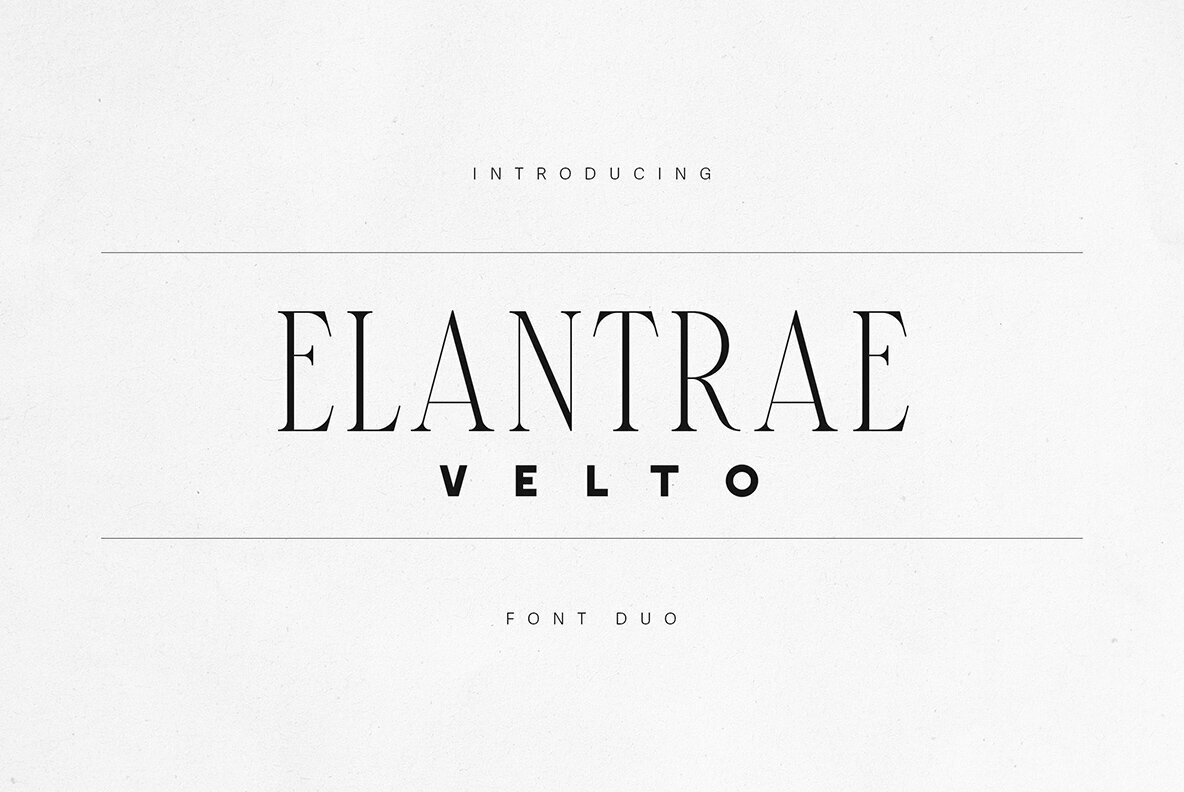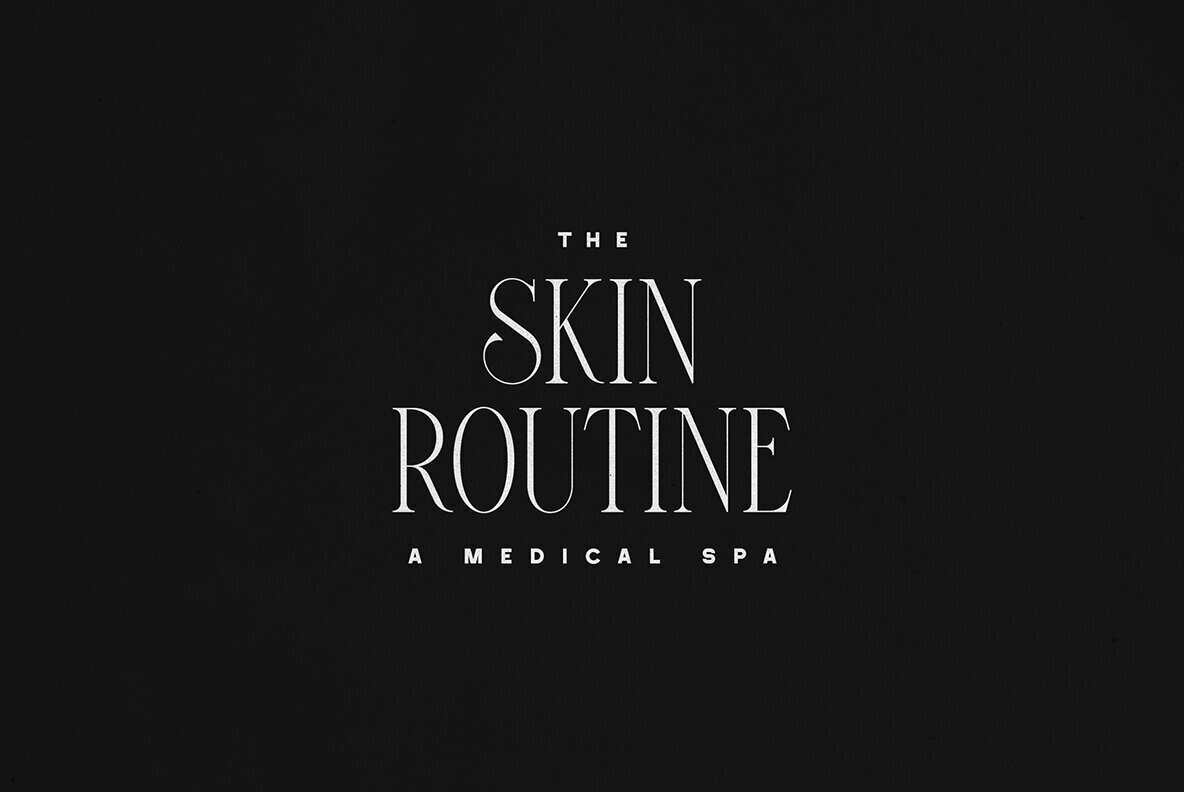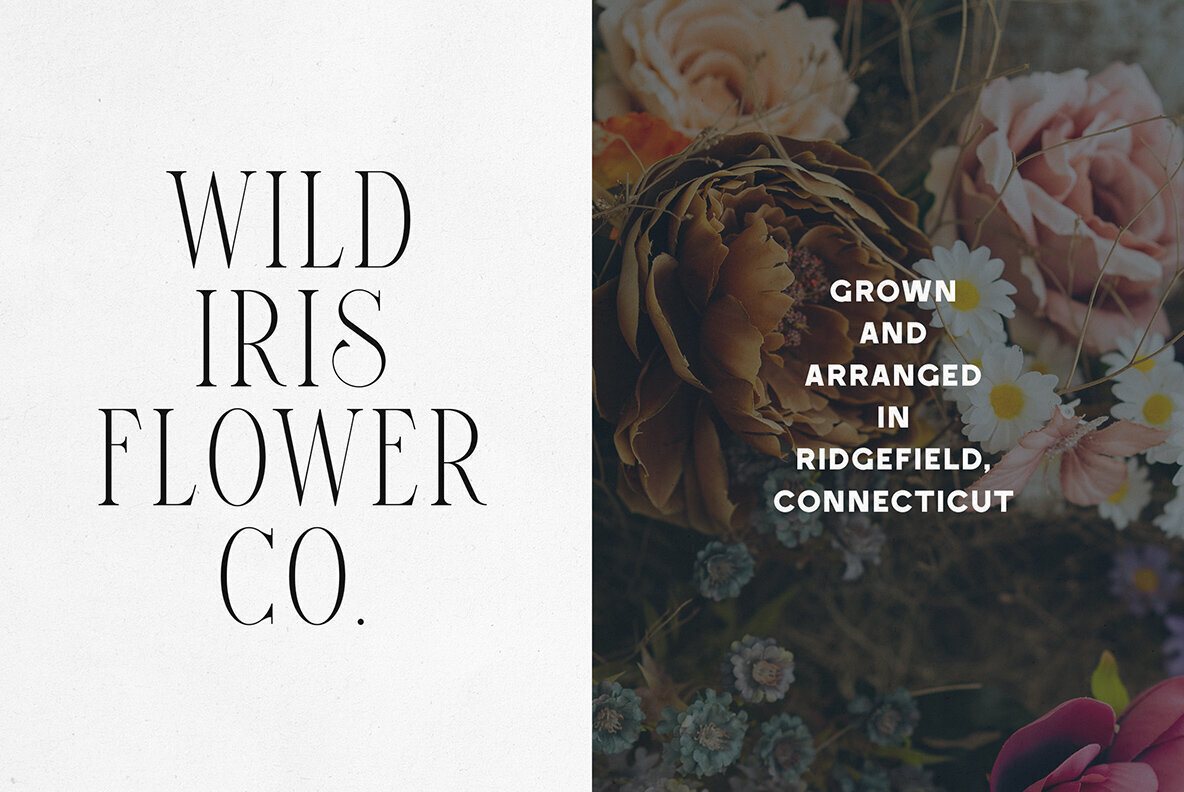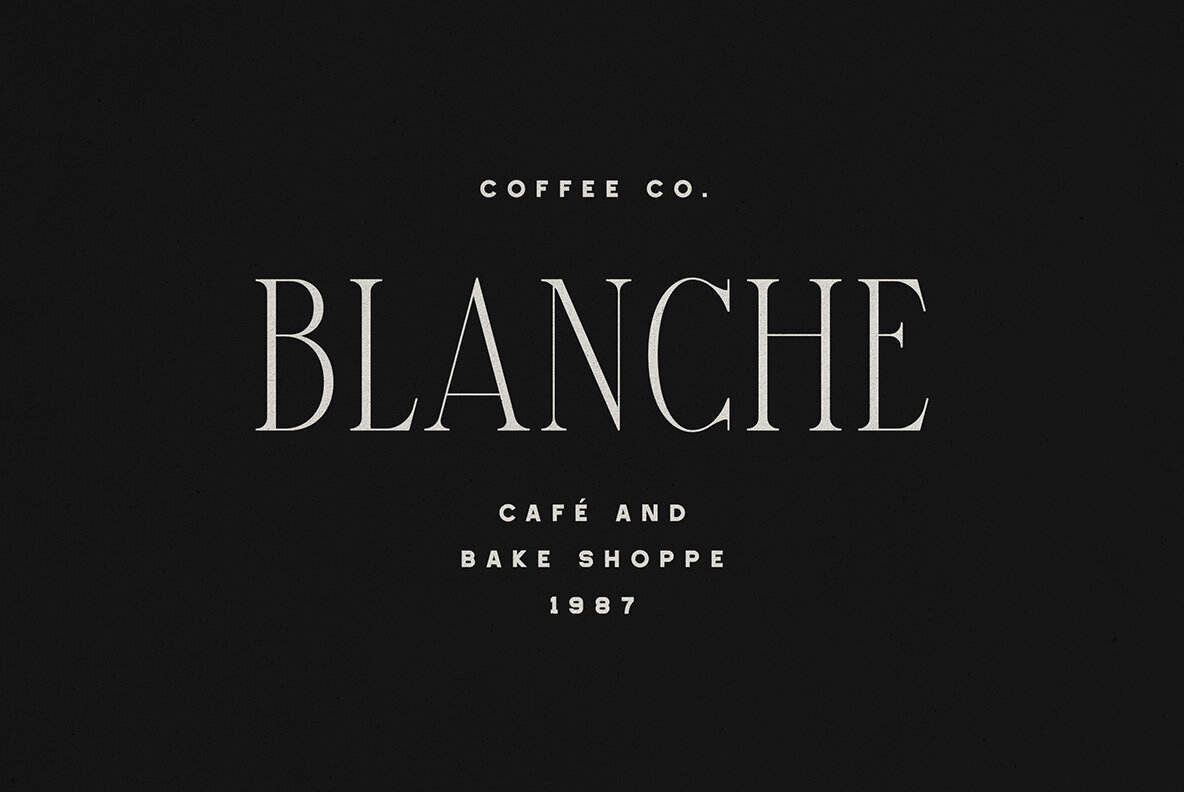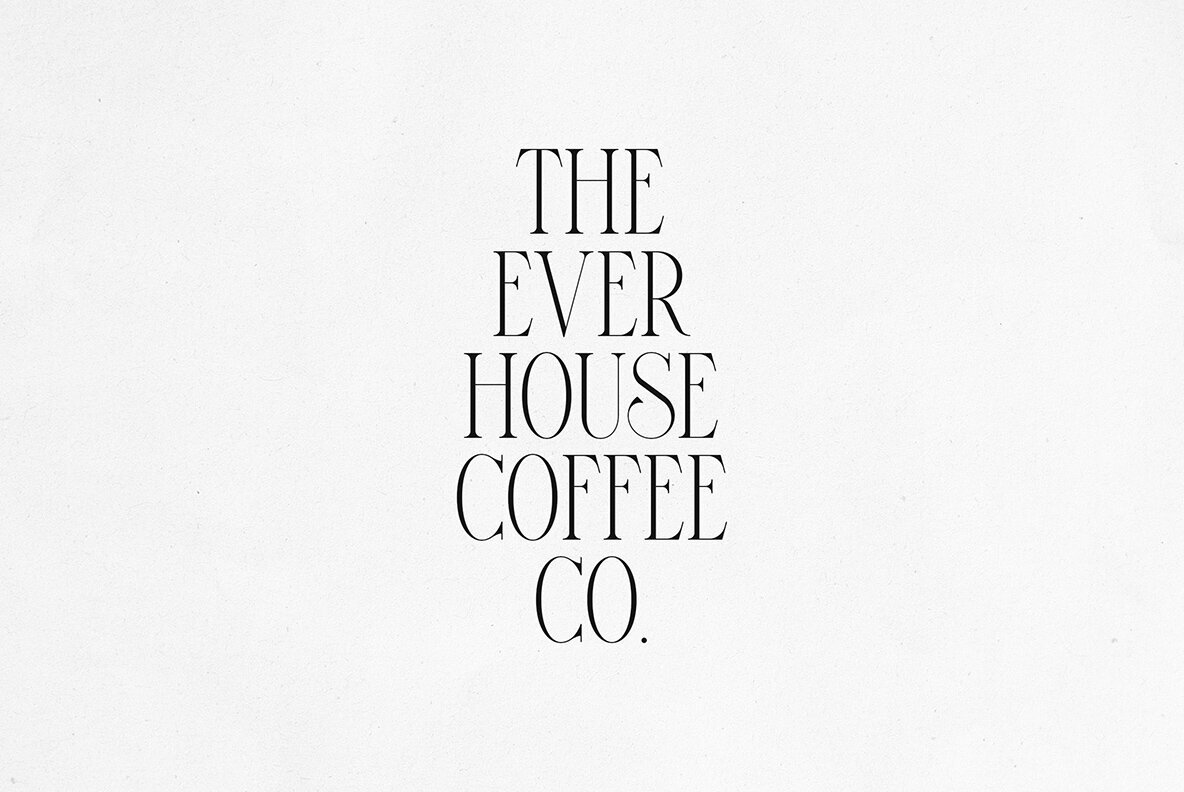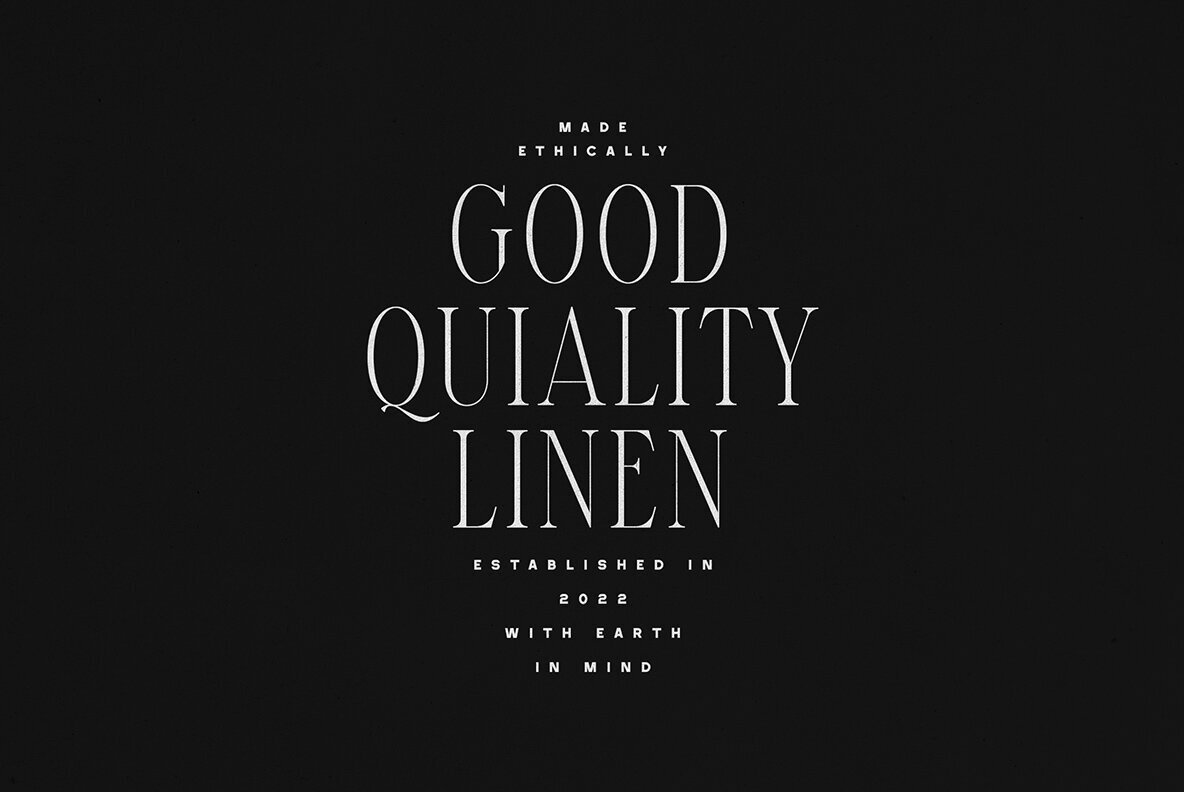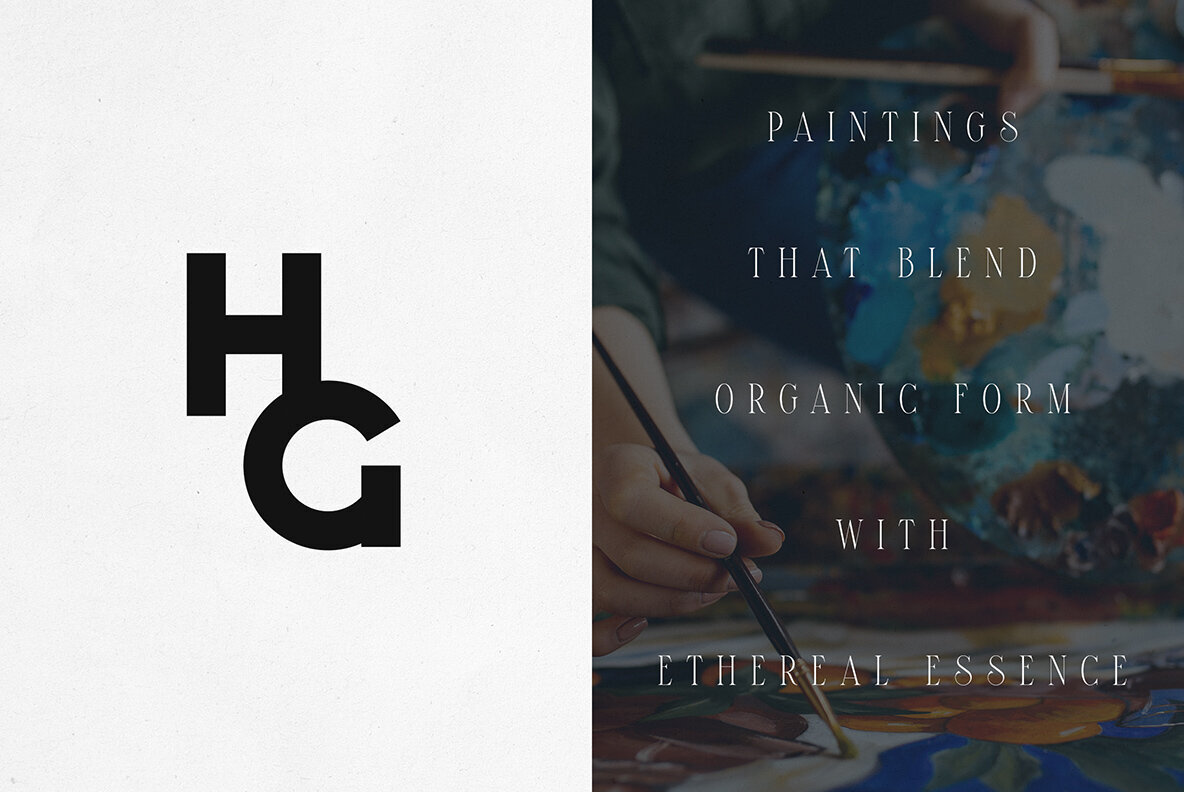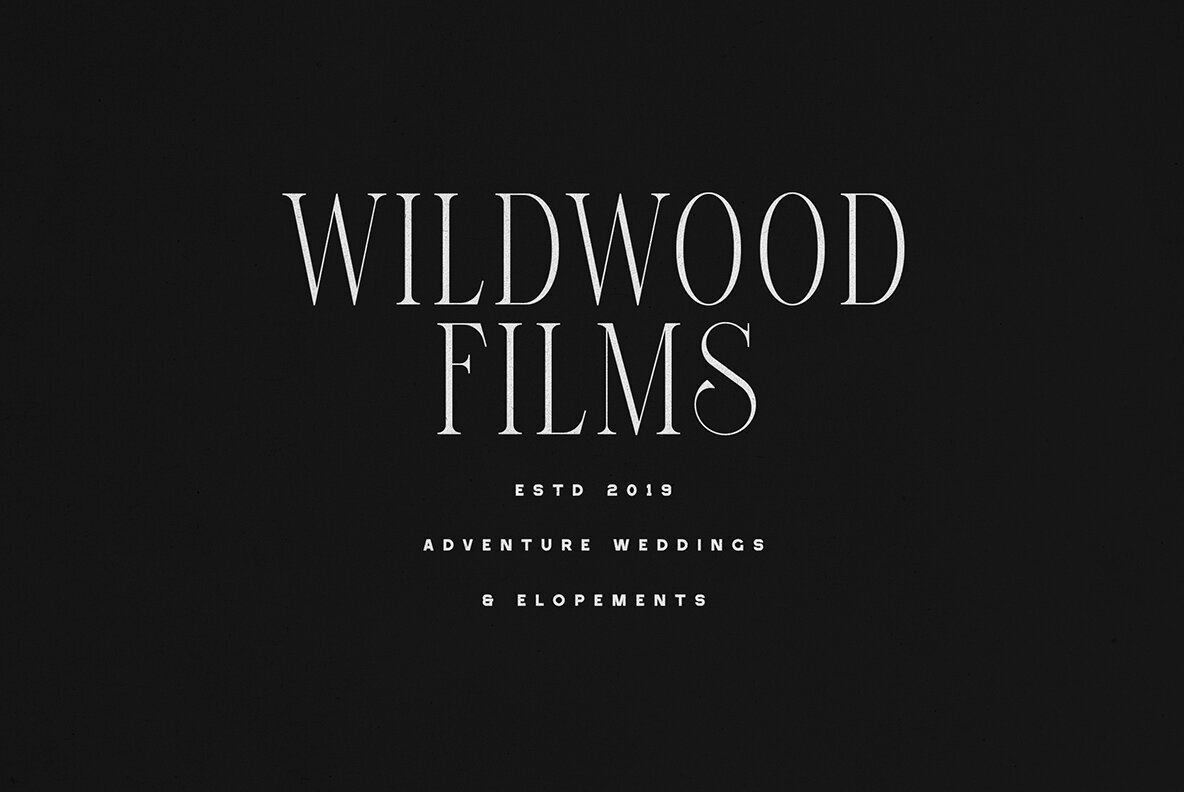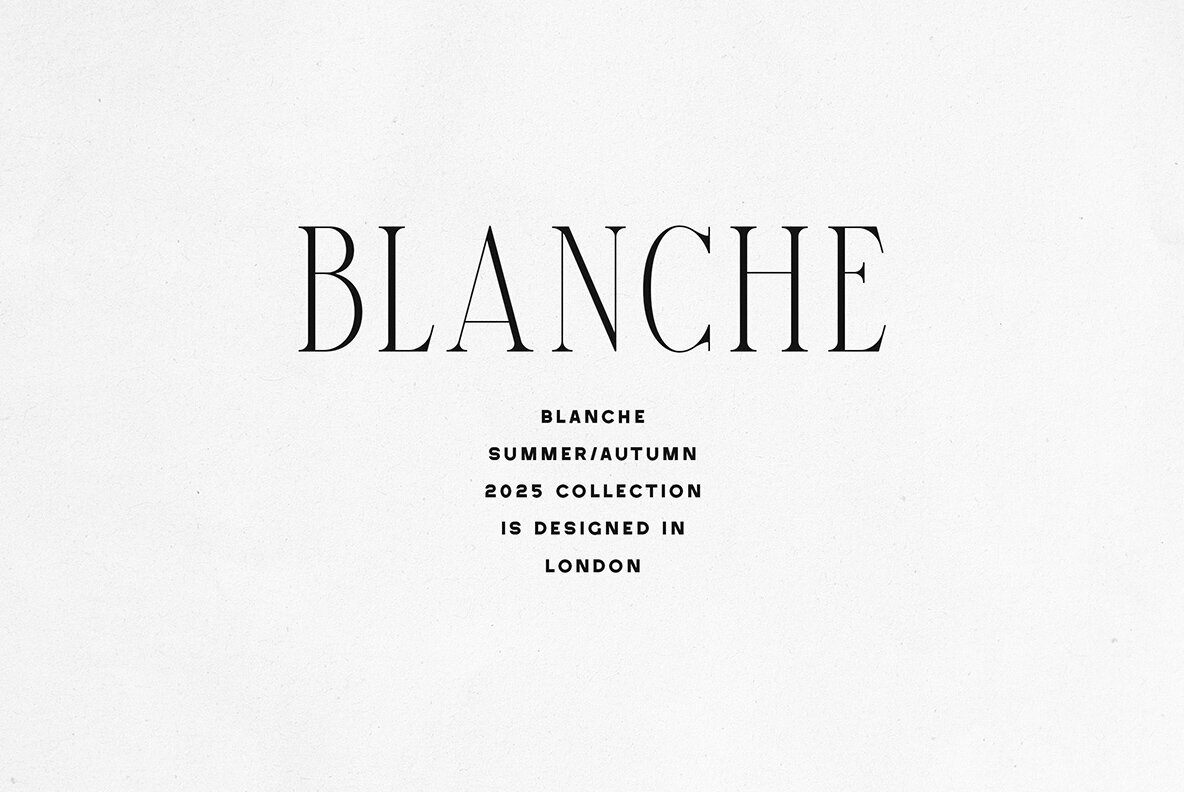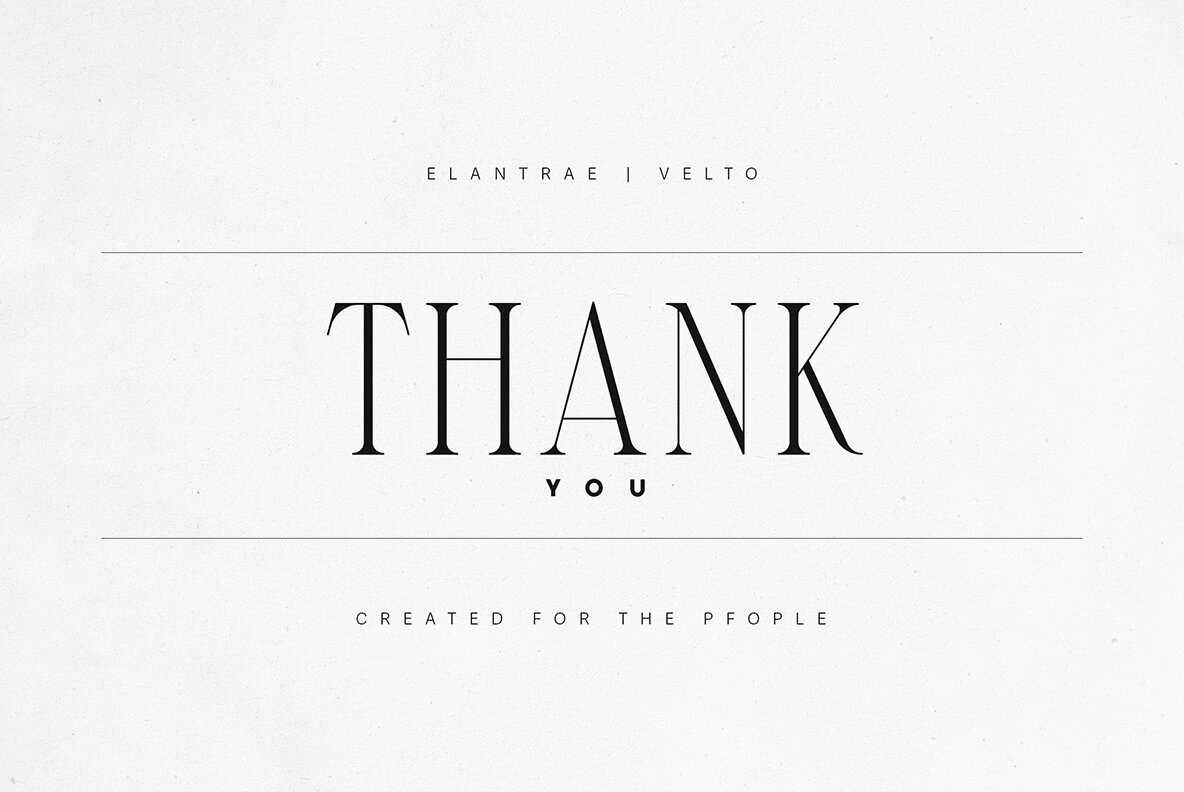
Elantrae Velto Font
Elantrae Regular
Velto Regular
Elantrae Velto presents a sophisticated pairing of refined serif and clean sans-serif styles. This modern font duo balances heritage-inspired elegance with a minimal, contemporary edge. The tall, graceful serifs of Elantrae and the crisp, geometric lines of Velto provide versatility for design projects requiring a touch of luxury and modernity. Each letterform is thoughtfully crafted, ensuring polished presentation across branding, editorial, packaging, and digital applications. The combination is ideal for designers working on high-end branding, fashion identities, lifestyle logos, and magazine layouts. With careful kerning and support for over 87 languages, Elantrae Velto performs seamlessly on both print and digital platforms. The duo’s timeless design adapts well to minimalist concepts or bold statement type, offering a confident and refined typographic presence. Suitable for luxury branding, editorial layouts, packaging, and web design, Elantrae Velto delivers clarity and sophistication with every use.Elantrae Velto – Modern Luxury Font Duo